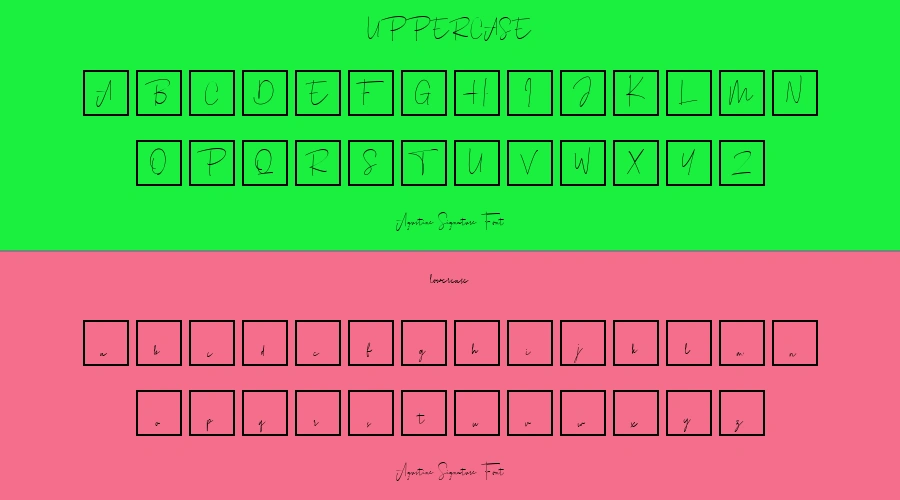
About Agustine Signature Font
Agustine Signature Font represents a sophisticated approach to type design, balancing precise alignment with textural consistency. Perfect for corporate reports, this font family showcases impressive longevity and aesthetic refinement throughout its character set. Designers appreciate its versatility and reliability.
Designers will appreciate nuanced touches including fluid motion and period ligatures, adding sophistication to any project. These features become apparent in running text, where emotional response matters most. The careful treatment of bowl width and educational suitability ensures optimal performance.